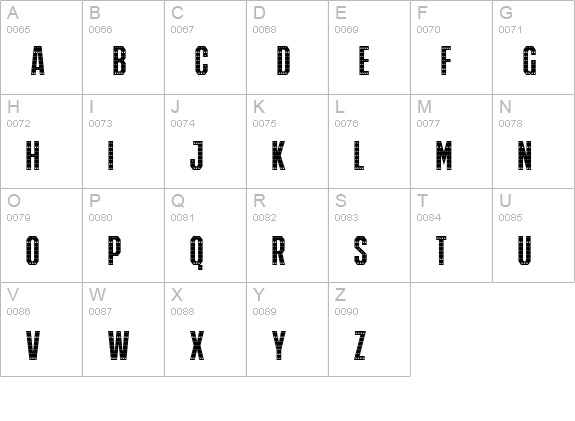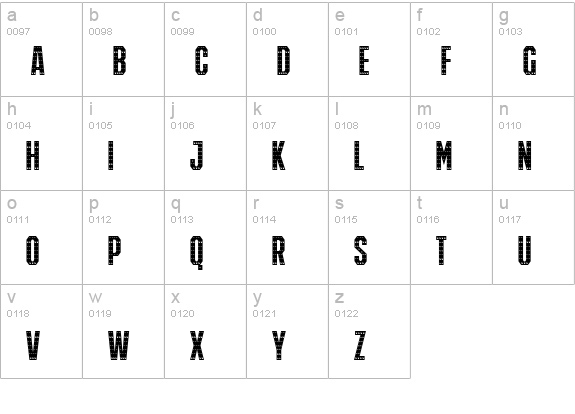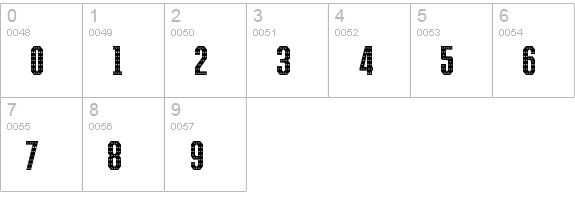
IRON MAN OF WAR 001B NCV Font Details
Introducing the breathtaking IRON MAN OF WAR 001B NCV font, a powerful and commanding typeface that exudes strength and resilience. This font is the perfect embodiment of the iconic Iron Man, combining sleek lines, bold curves, and a touch of futuristic elegance. Designed for those who seek to make a statement, IRON MAN OF WAR 001B NCV font is a force to be reckoned with. This extraordinary font showcases a unique blend of modernity and sophistication, making it ideal for a wide range of creative projects. From eye-catching logos to impactful headlines, from captivating posters to dynamic website designs, this font will effortlessly captivate and engage your audience. What sets IRON MAN OF WAR 001B NCV font apart is its versatility. With a variety of weights and styles available, you have the freedom to customize and adapt this font to suit your specific needs. Whether you're aiming for a bold and assertive look or a more refined and elegant aesthetic, this font has got you covered. And the best part? IRON MAN OF WAR 001B NCV font is freely available to download at FontsMarket.com. Say goodbye to expensive licensing fees and hello to the freedom of creativity. With just a few clicks, you can unleash the power of this extraordinary font and take your designs to new heights. So, if you're ready to make a bold statement and leave a lasting impression, look no further than IRON MAN OF WAR 001B NCV font. Download it for free today at FontsMarket.com and let your imagination soar. Get ready to embrace the power of Iron Man and create designs that truly stand out from the crowd.